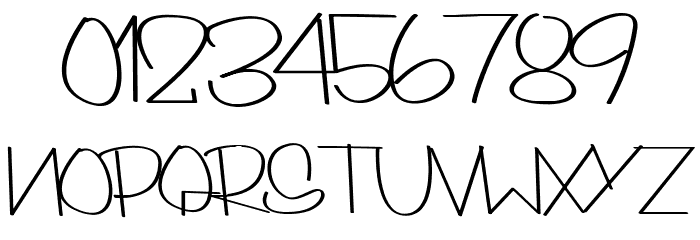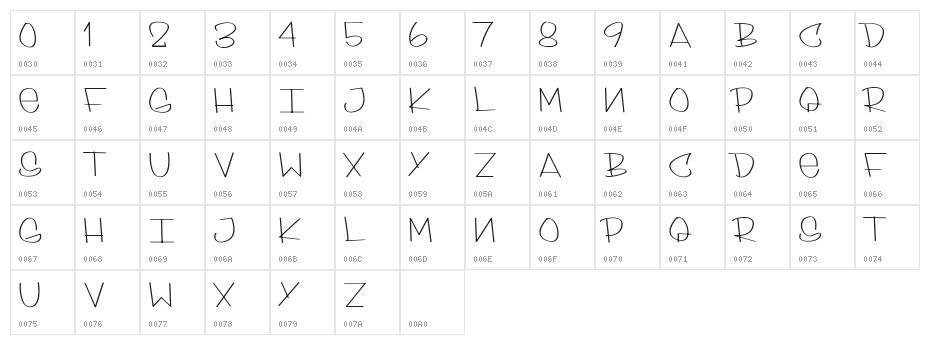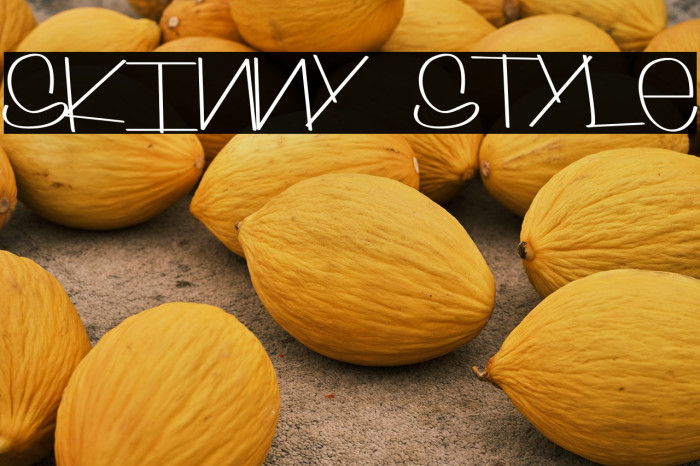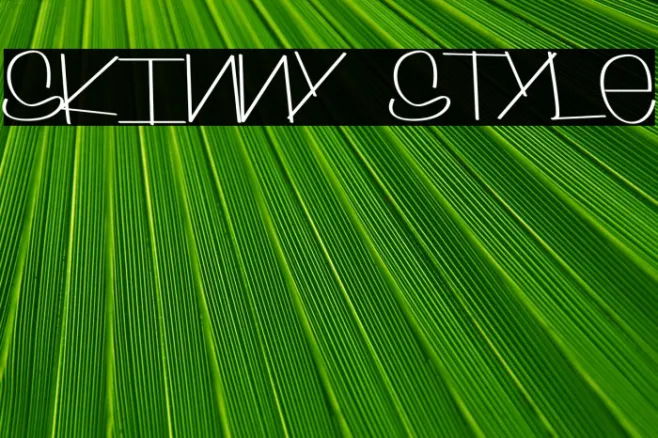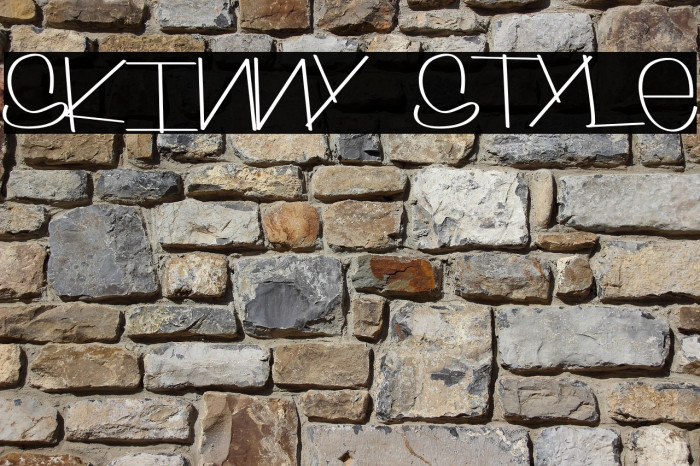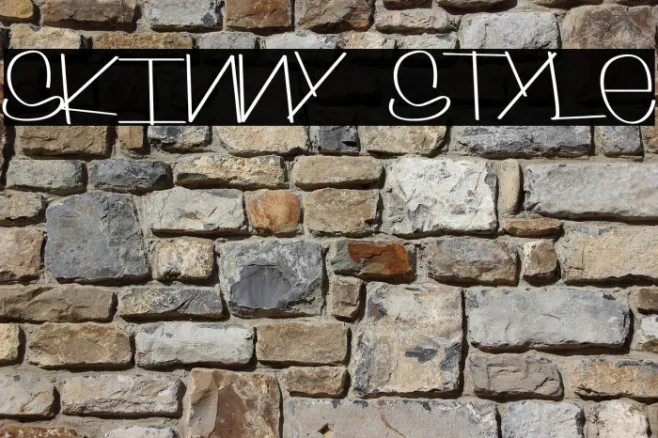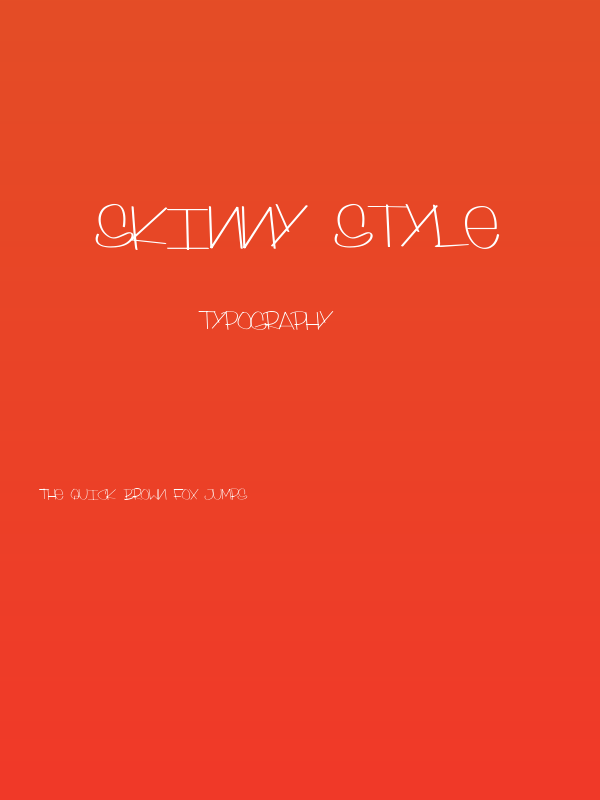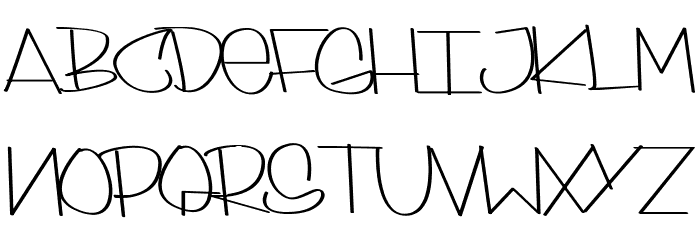
Skinny Style Font
Skinny Style Description
This font features a playful and whimsical style with elongated, thin strokes that give it a distinctive, airy appearance. The characters are slightly slanted, adding a dynamic and informal touch. The uppercase and lowercase letters maintain a consistent height, contributing to a cohesive look. The numbers and special characters follow the same slender design, ensuring uniformity across all elements. This font's unique style makes it stand out, ideal for creative projects that require a touch of personality and flair.